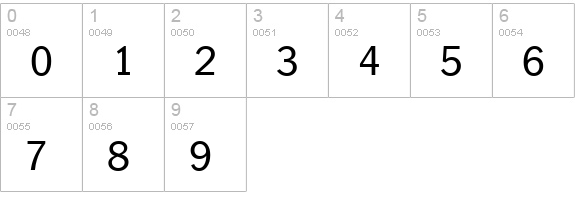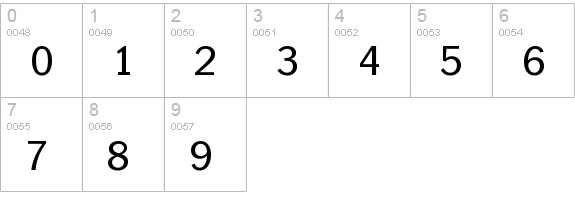
PlymouthSerial-Regular is the standard, neutral variant in the PlymouthSerial typeface family \xE2\x80\x94 well suited to general body text, paragraphs, and standard typographic work.
PlymouthSerial-Regular is a classic and versatile font that exudes elegance and sophistication. With its timeless design and clean lines, this font is perfect for a wide range of design projects, from branding to editorial content. What sets PlymouthSerial-Regular apart is its seamless blend of traditional and modern elements, making it suitable for both retro-inspired designs and contemporary layouts. The font's balanced proportions and distinct letterforms ensure readability and visual appeal across various mediums. Best of all, PlymouthSerial-Regular is available for free download at FontsMarket.com. Whether you're a designer looking to add a touch of refinement to your projects or a content creator in need of a stylish typeface, PlymouthSerial-Regular is a must-have addition to your font library. Download it today and elevate your designs with this timeless and versatile font.